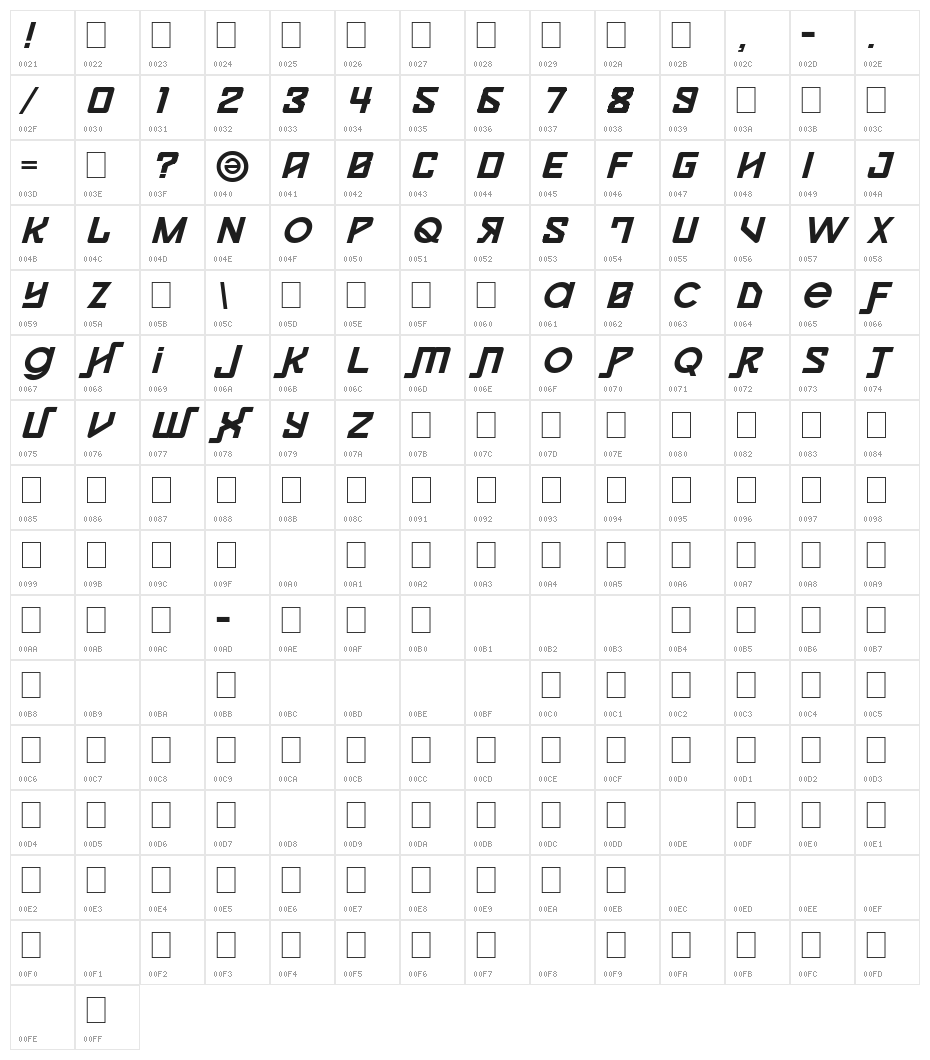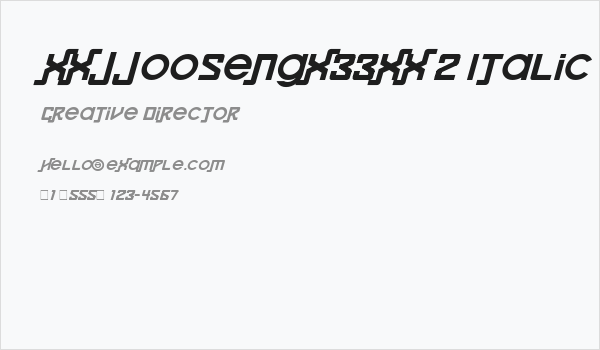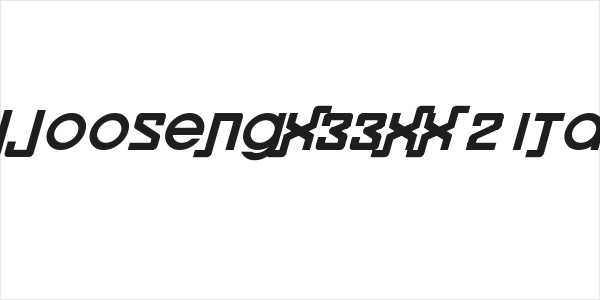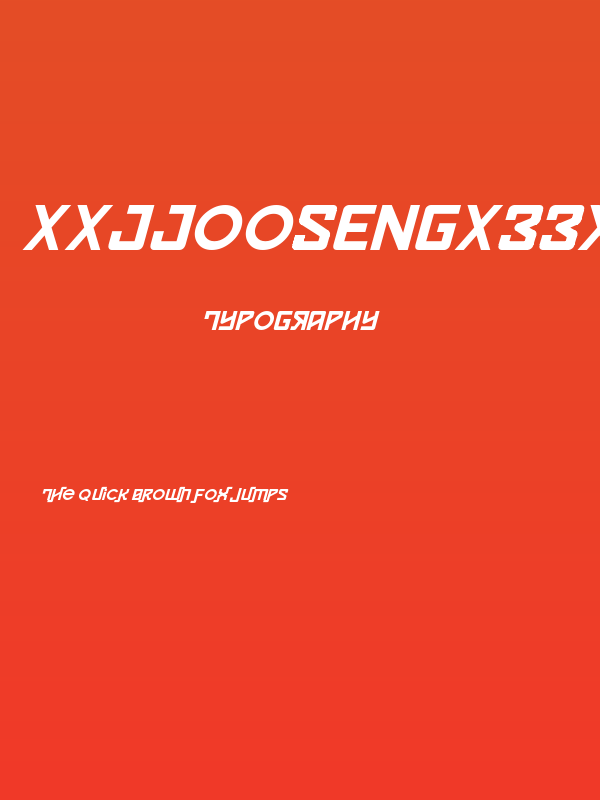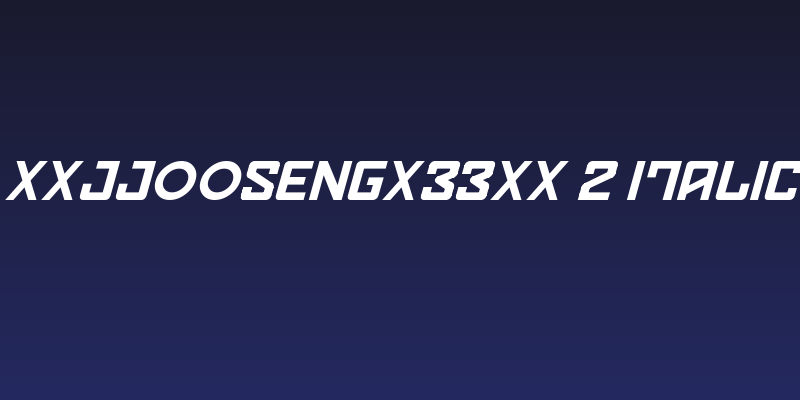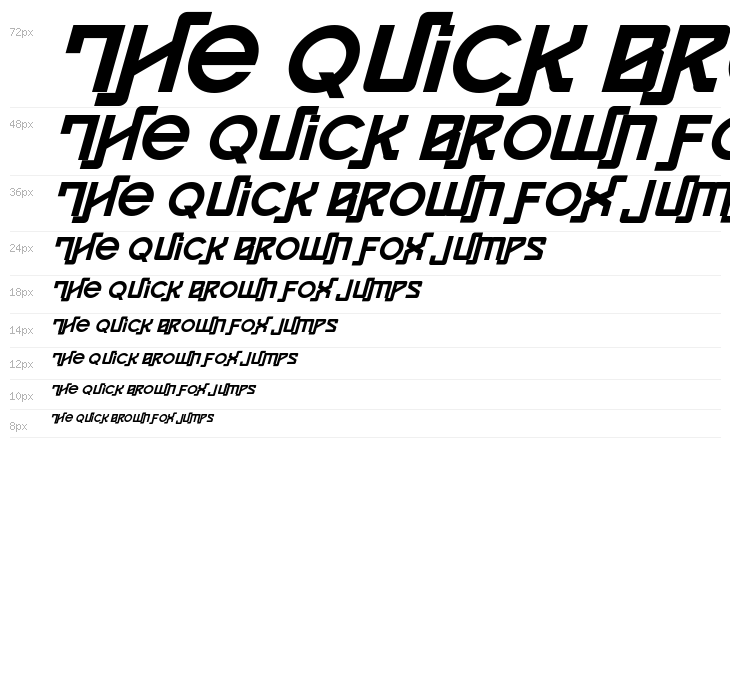
xxjjoosengx33xx 2 Italic Font
xxjjoosengx33xx 2 Italic Description
This font exhibits a bold and dynamic style with a strong italic slant, giving it a sense of motion and speed. The characters are angular and geometric, with sharp edges and a modern aesthetic. The uppercase and lowercase letters maintain a consistent style, with the lowercase letters slightly more rounded. The numbers follow the same angular design, ensuring uniformity across all characters. The special characters are designed to match the overall bold and modern look, making this font suitable for projects that require a contemporary and energetic feel.